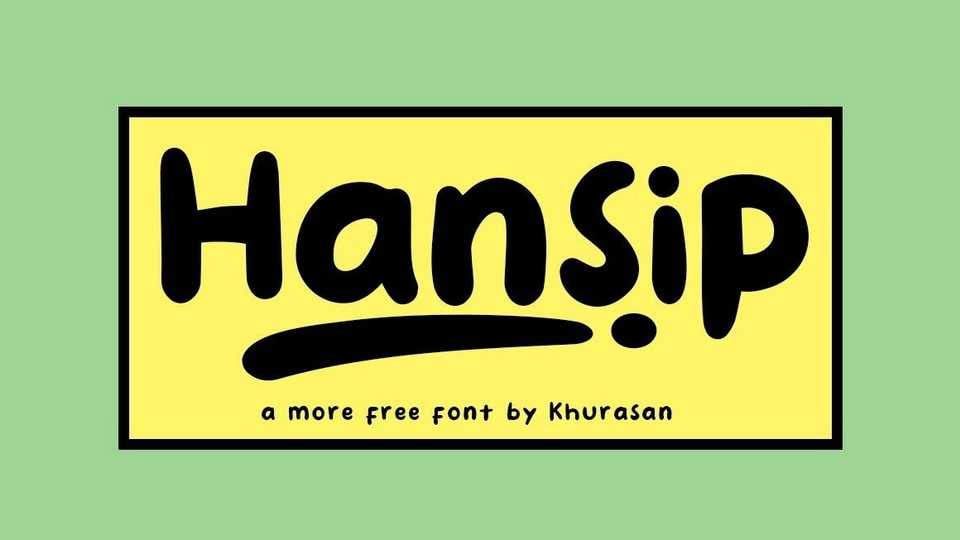
Download Hansip font, a funny and quirky handwritten marker typeface. Hansip is perfect for posters, logos, magazines, book covers, banners, and other lovely designs.